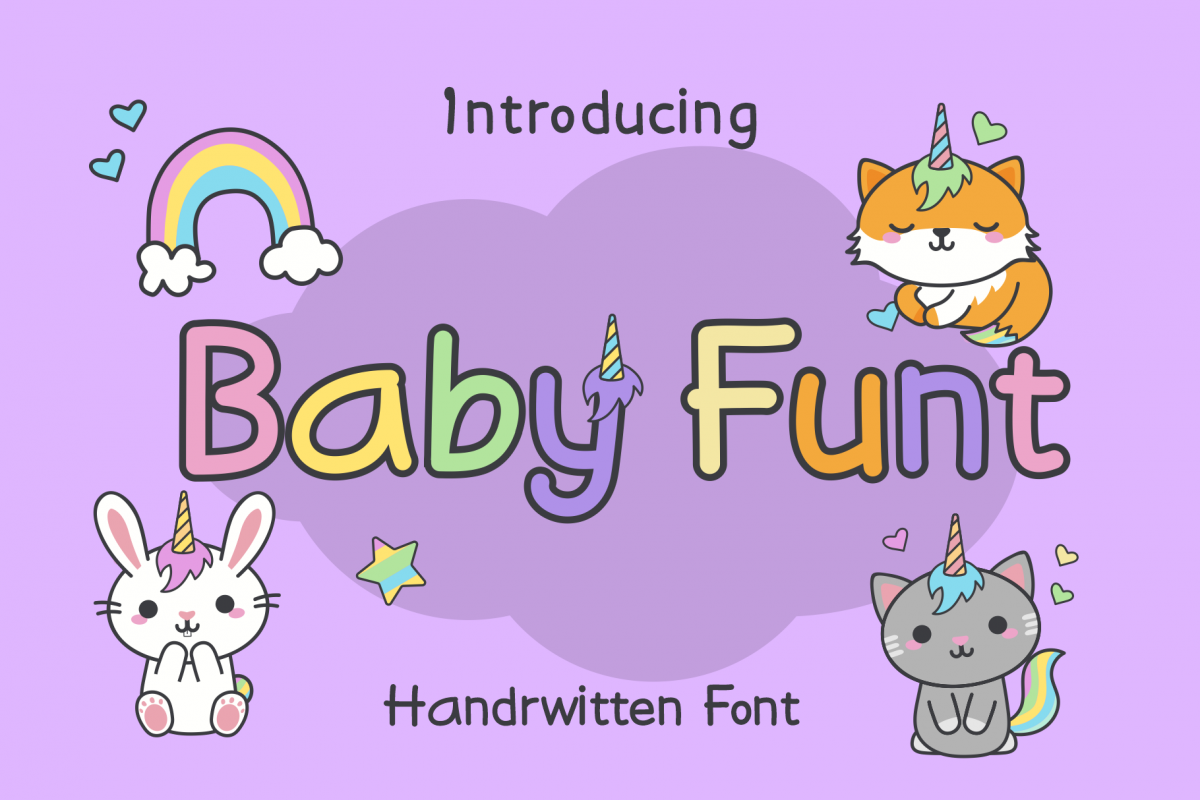
Baby Funt Inspired by Playful style and combination with Hand Lettering style. This font can be used for comic design, children's books, preschool name tag and others. This font has multiple languages and if you buy this font, you will get bonus character vectors.